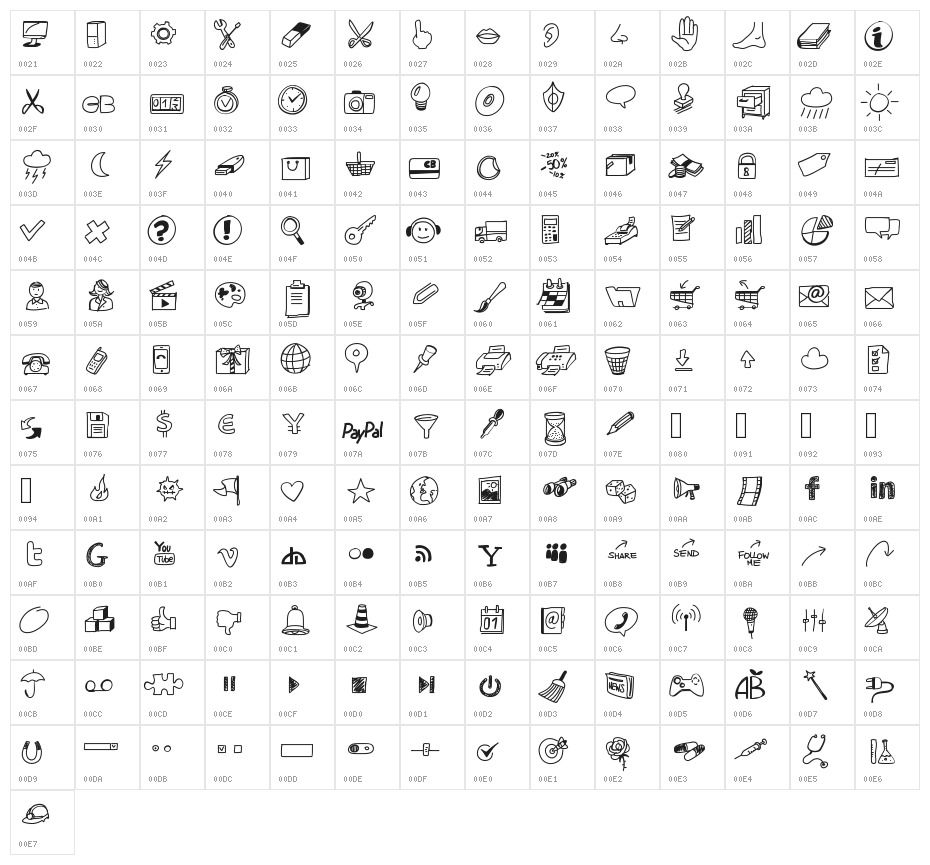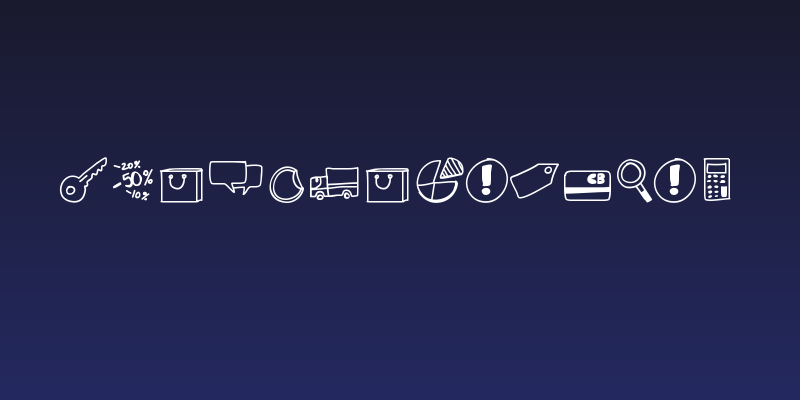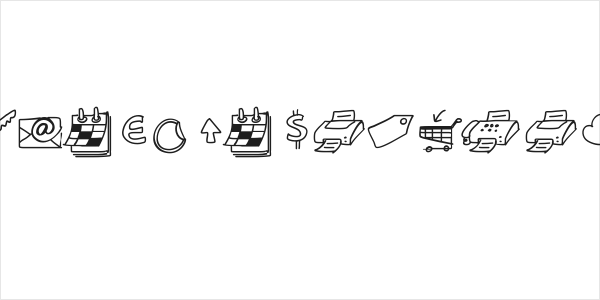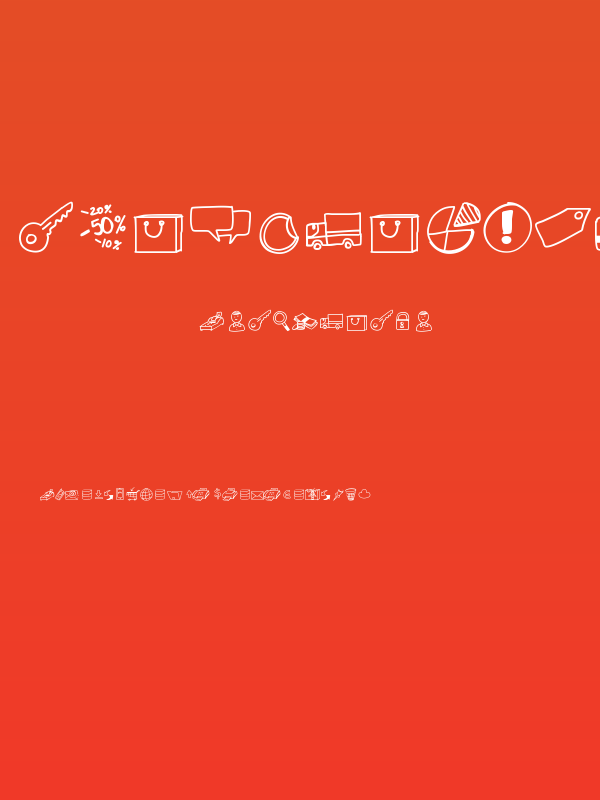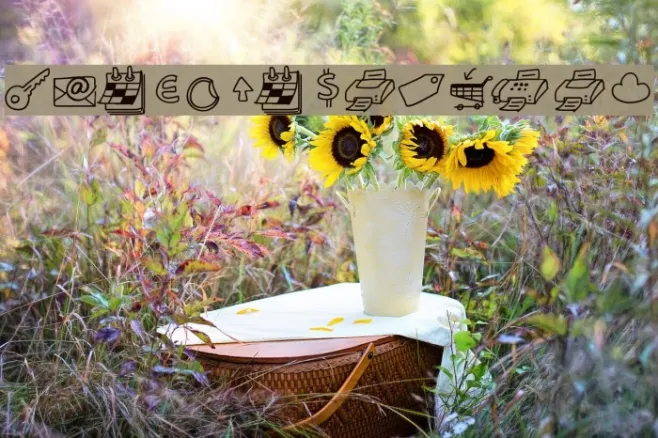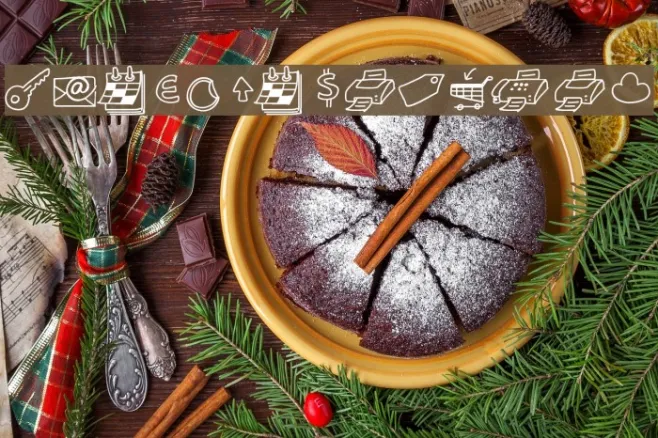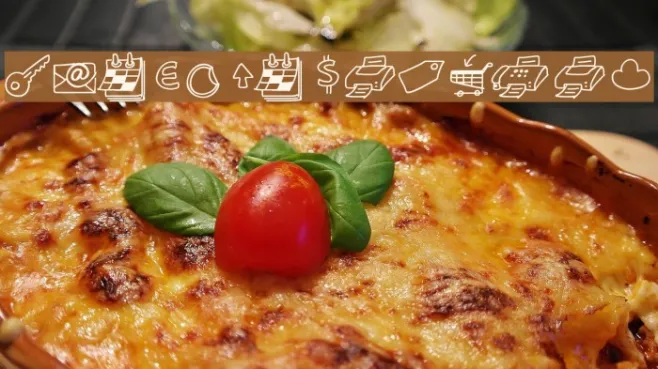
PeaxDrawnIcons Font
PeaxDrawnIcons Description
A playful, hand-drawn icon set with a casual, sketch-like appearance. The icons are outlined, slightly irregular, and have a friendly, informal feel. Line thickness is consistent, and the icons are easily recognizable, making them suitable for a variety of digital interfaces.
| Overall Style | Decorative, Playful, Hand-drawn |
| Use Case | Icons, UI elements, infographics, playful branding |
| Proposed Projects | Websites, mobile apps, infographics, educational materials, creative presentations, e-commerce platforms. |